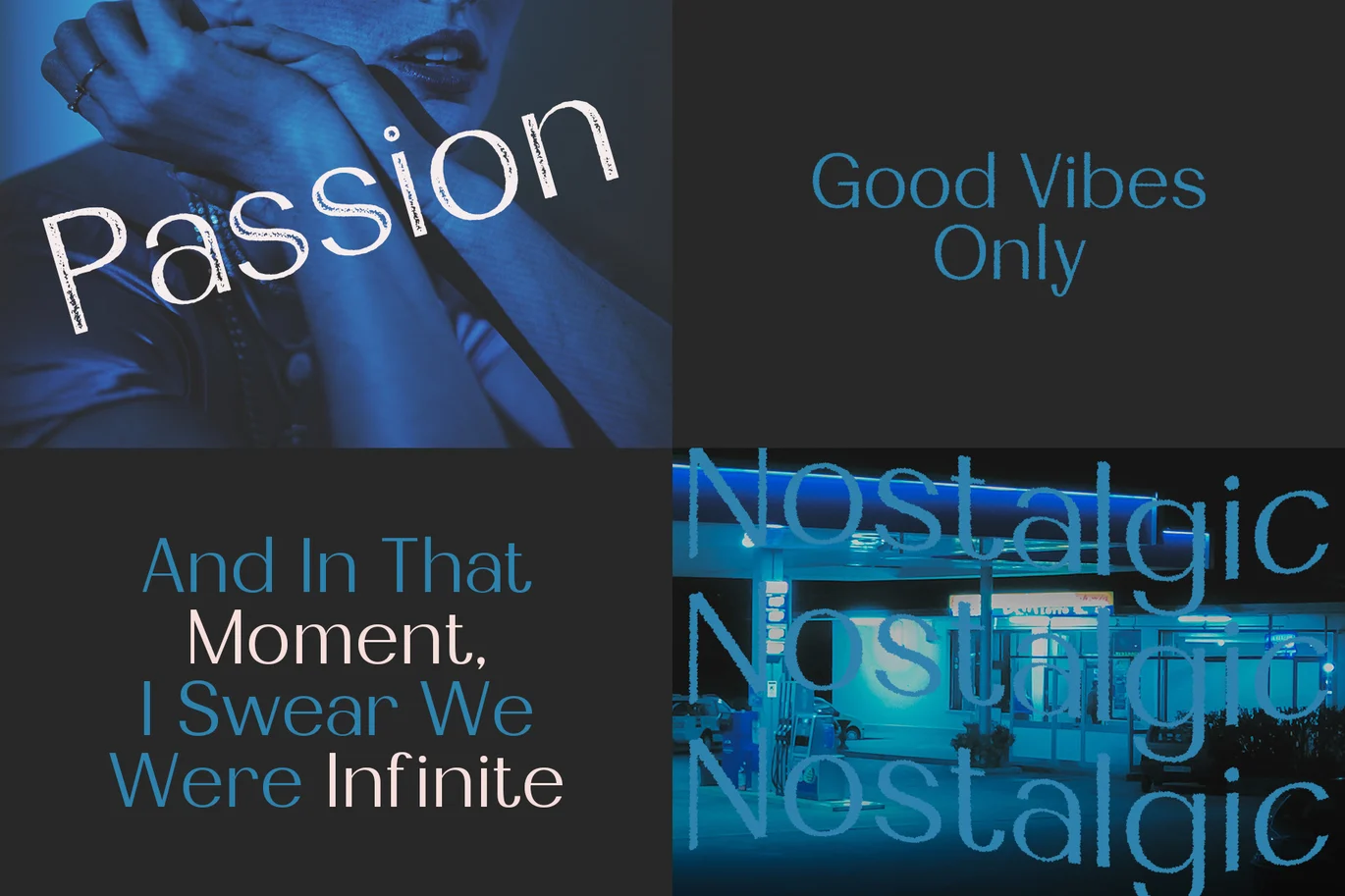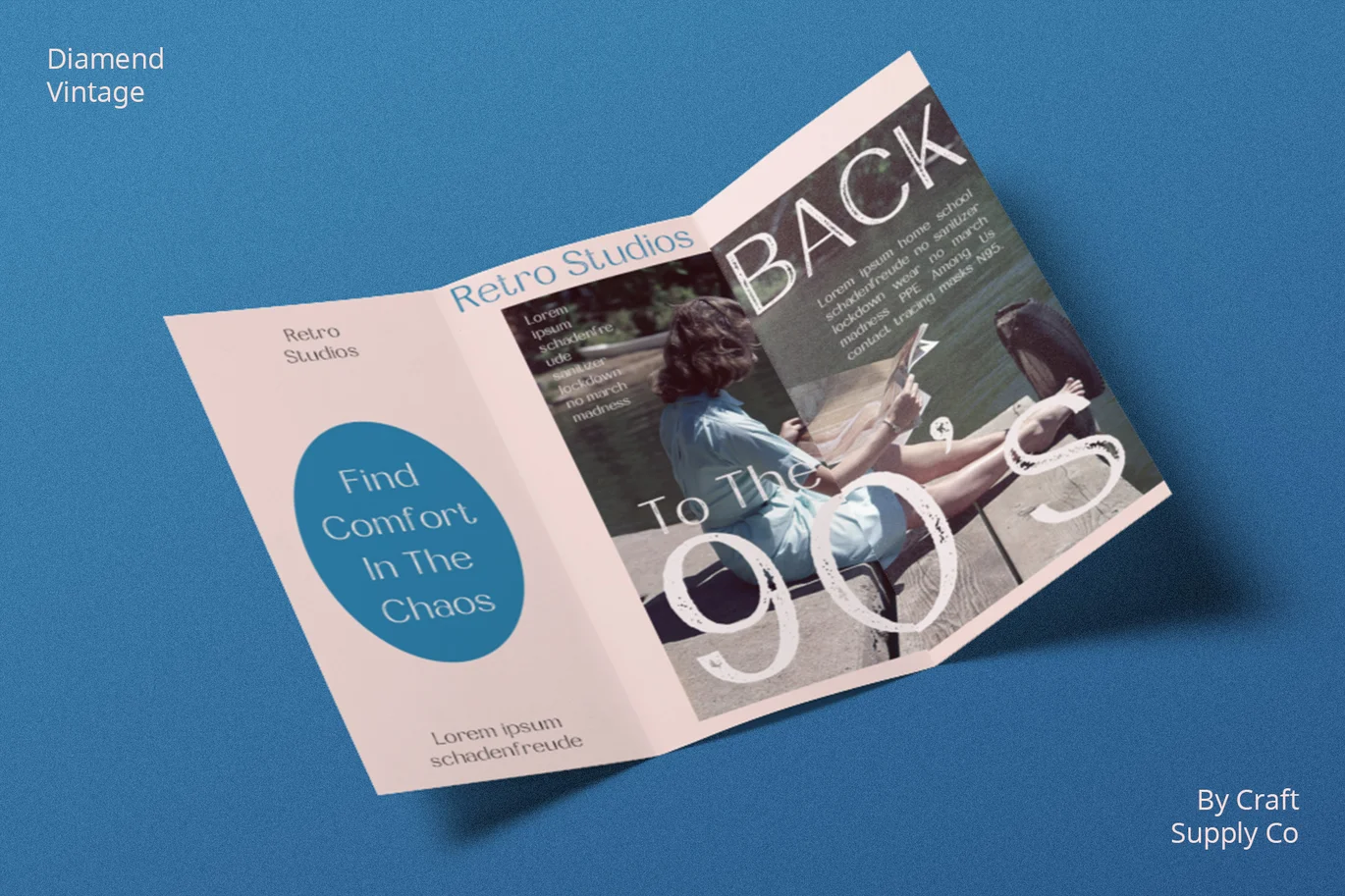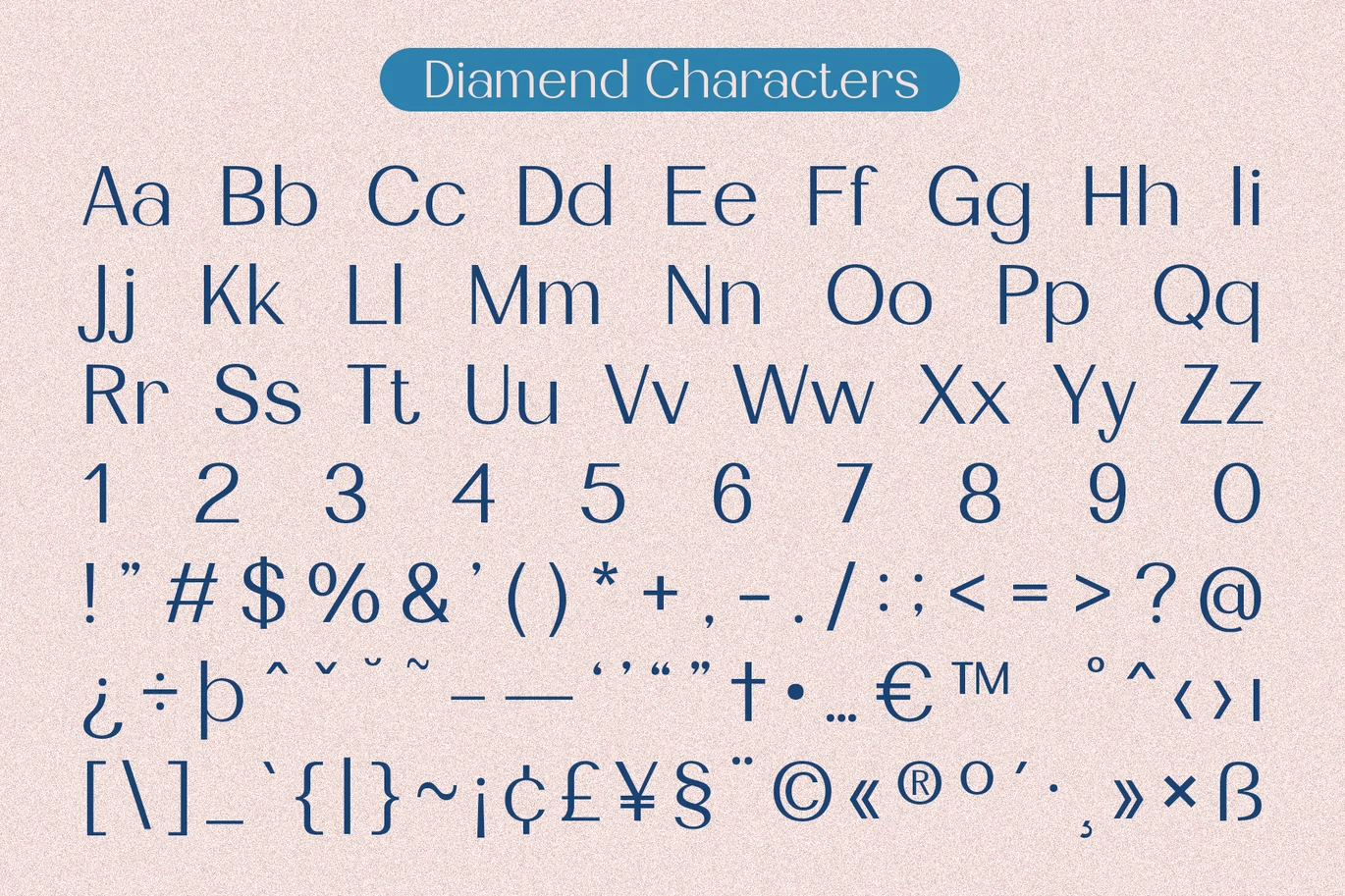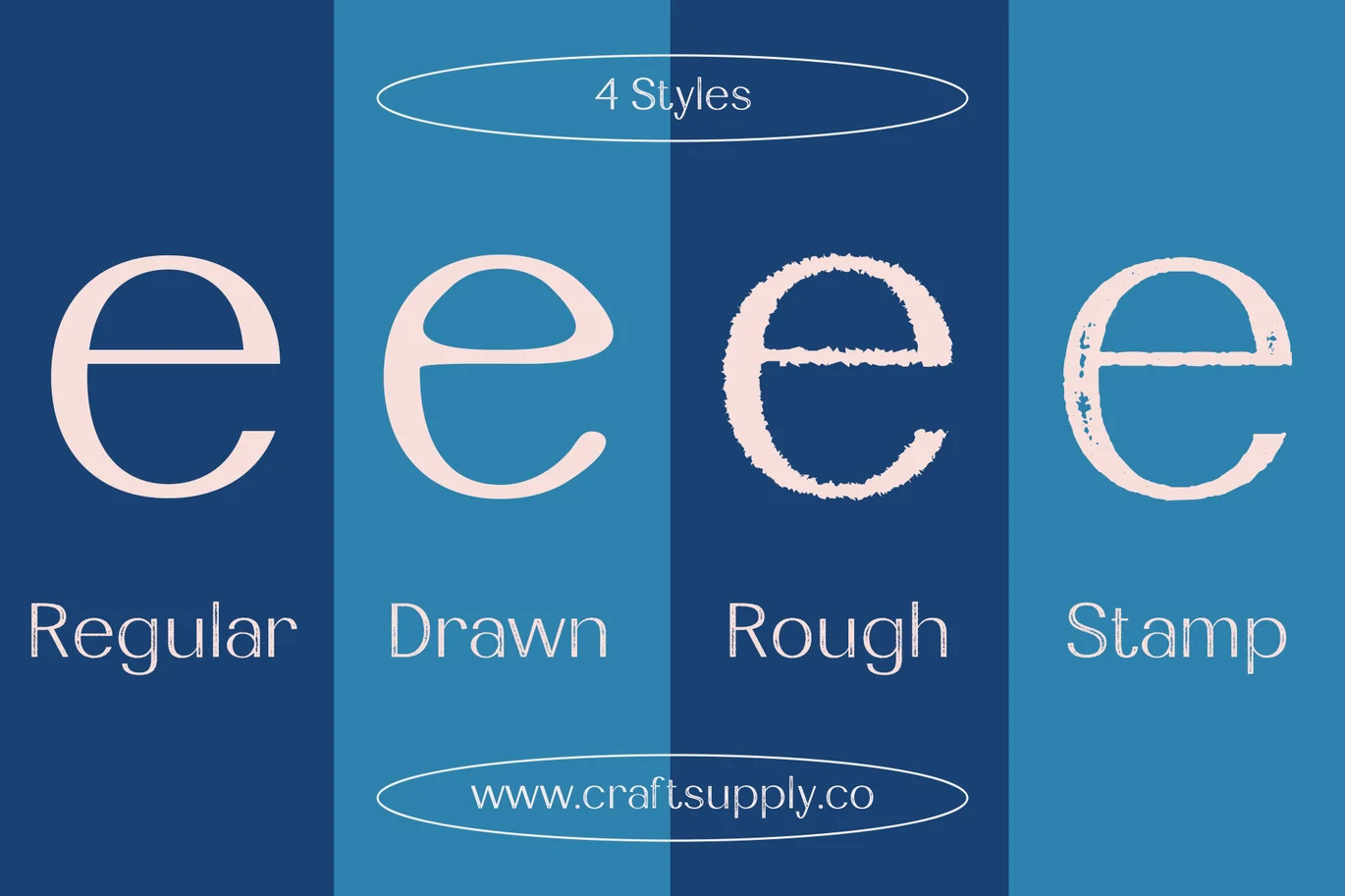
Diamend Vintage – Sans Serif Font
Introducing Diamend Vintage – Sans Serif Font
Classic Appeal: Diamend Vintage embodies timeless charm, sporting a vintage sans-serif style with a distinct stamp and rough texture. It transports your designs back in time, perfect for various creative projects.
Authentic Aesthetics: This font boasts an authentic, hand-drawn design reminiscent of old-fashioned letterpress printing. Its imperfections lend genuine character, adding a unique touch to your creations.
Versatile Usage: Diamend Vintage adapts seamlessly to diverse projects. Whether it’s retro posters, vintage logos, or rustic signage, this font’s flexibility ensures it meets your creative needs.
Stand Out with Style: Your text gains distinction and sophistication with Diamend Vintage. Its clean lines, stamp-like texture, and rough edges give your words a memorable appearance, leaving a lasting impression on your audience.
In summary, Diamend Vintage – Sans Serif Font offers classic charm, authentic aesthetics, versatility, and standout style to elevate your designs. Embrace its vintage allure to infuse a touch of the past into your creative endeavors.
Diamend Regular
Diamend Drawn
Diamend Rough
Diamend Stamp